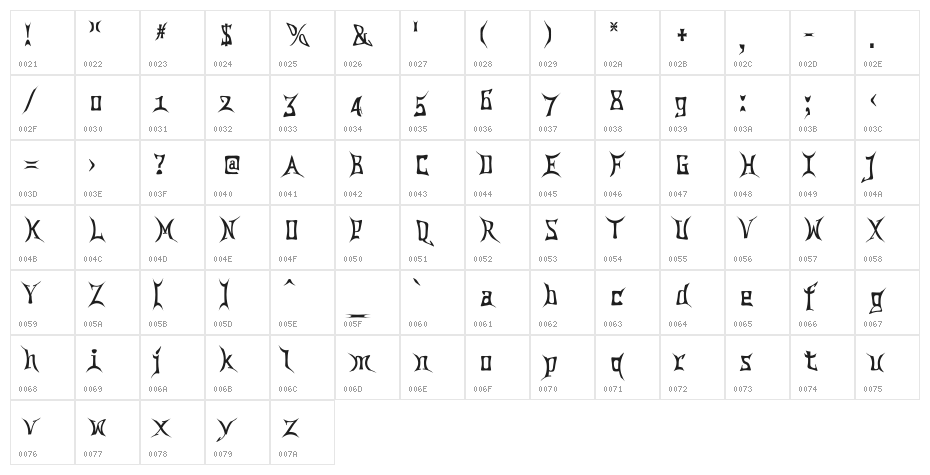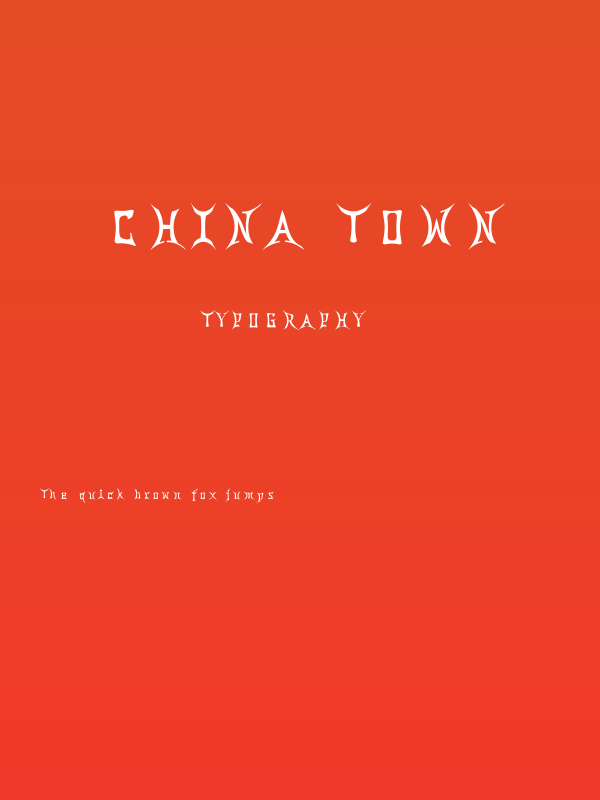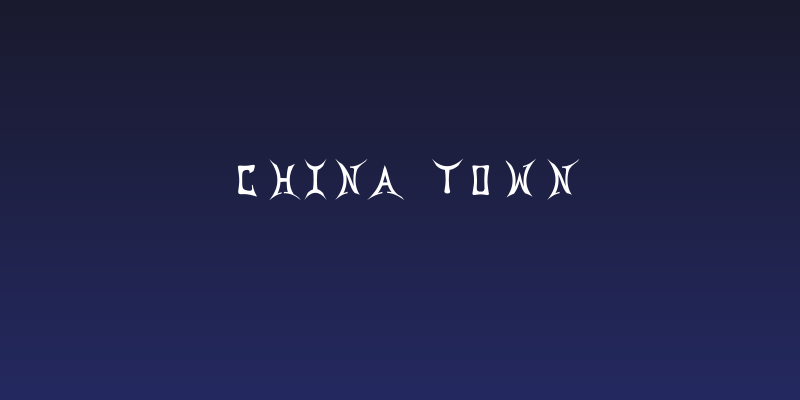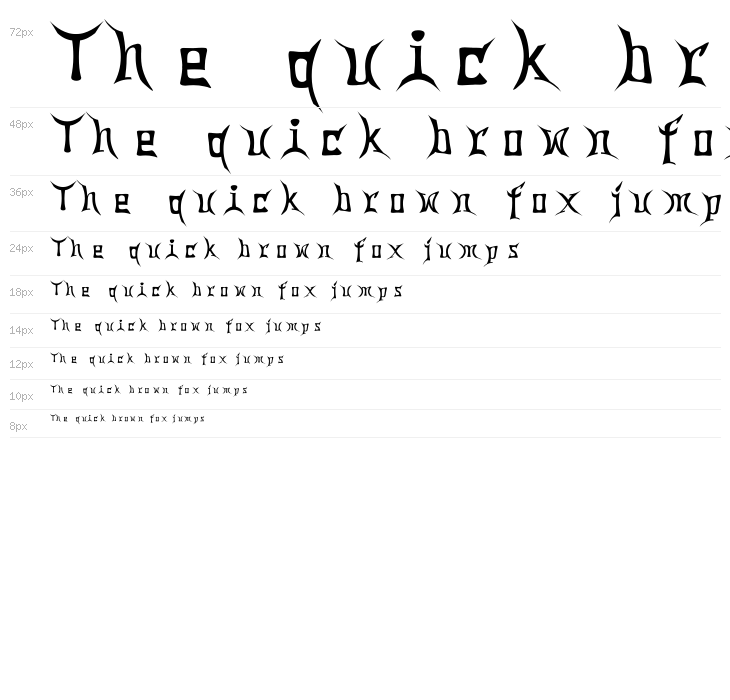
China Town Font
China Town Description
This font features a unique and decorative style with sharp, angular edges and a distinct flair reminiscent of traditional Asian calligraphy. The characters are bold and striking, with exaggerated serifs and a dynamic flow that captures attention. The uppercase letters are particularly ornate, while the lowercase letters maintain a consistent style with slightly less embellishment. Numbers and special characters follow the same aesthetic, ensuring a cohesive look across all glyphs. The overall design is both artistic and functional, making it suitable for projects that require a touch of exotic elegance.
| Proposed Projects | Ideal for use in themed restaurant branding, cultural event posters, or artistic book covers. |